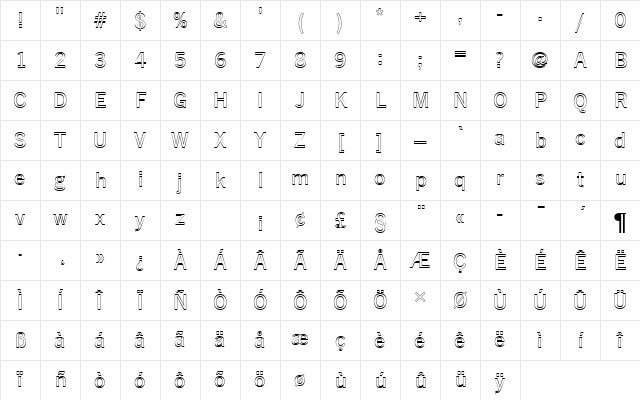
NewsGotTMedOu1 Regular
Design Context for NewsGotTMedOu1
NewsGotTMedOu1 is a composed and adaptable typeface that performs quietly and consistently across a wide range of design contexts.